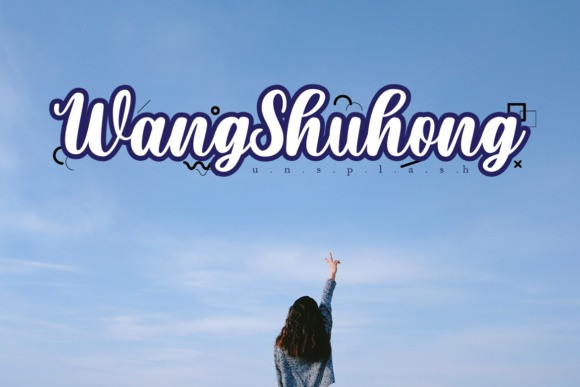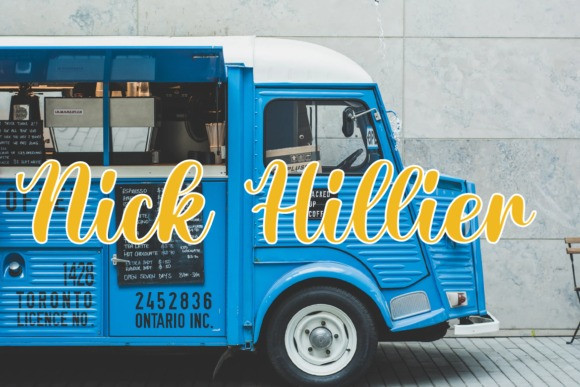
The Ledbetter Font
The Ledbetter Script Font is a lovely script font featuring charming, playful characters that seem to dance along the baseline. Add this font to your most creative ideas, and notice how it makes them stand out!